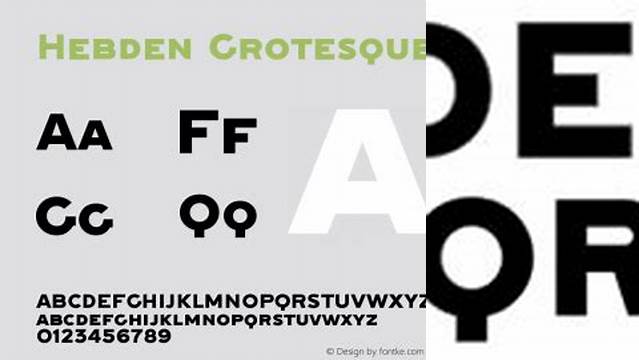
Are you on the hunt for the perfect font to elevate your design projects? Look no further! In this article, we'll dive deep into the world of Hebden Grotesque, exploring its unique characteristics, its versatility, and, most importantly, where you can find it for free. So, whether you're a seasoned designer or just starting out, get ready to discover how Hebden Grotesque can add a touch of sophistication and modernity to your creative endeavors.
What is Hebden Grotesque?
Let's start with the basics. Hebden Grotesque is a sans-serif typeface known for its clean lines, balanced proportions, and overall readability. It falls into the "grotesque" category, which refers to early sans-serif fonts that emerged in the 19th century. These fonts are characterized by their simple, unadorned letterforms, making them ideal for a wide range of applications, from body text to headlines. Hebden Grotesque, in particular, strikes a harmonious balance between classic and contemporary design, making it a versatile choice for various projects.
The beauty of Hebden Grotesque lies in its simplicity. The absence of serifs gives it a modern and approachable feel, while its carefully crafted letterforms ensure readability even at smaller sizes. This makes it an excellent option for website design, where clear and legible text is crucial for user experience. Imagine using Hebden Grotesque for your website's headings and body text – its clean appearance will instantly enhance the overall aesthetic and professionalism. Moreover, its versatility extends beyond the digital realm. Hebden Grotesque can also be used effectively in print materials such as brochures, posters, and business cards. Its adaptability allows it to seamlessly integrate into various design styles, whether you're aiming for a minimalist, corporate, or creative look.
Furthermore, Hebden Grotesque's balanced proportions contribute to its visual appeal. Each letterform is meticulously designed to ensure harmony and consistency, resulting in a typeface that is both pleasing to the eye and easy to read. This attention to detail is what sets Hebden Grotesque apart from other sans-serif fonts, making it a top choice for designers who value quality and craftsmanship. When selecting a font for your project, it's important to consider not only its aesthetic appeal but also its functionality. Hebden Grotesque excels in both areas, offering a winning combination of style and usability. Whether you're designing a logo, creating a website, or crafting a marketing campaign, Hebden Grotesque can help you achieve your desired look and feel.
Key Features of Hebden Grotesque
- Clean and Modern: Its sans-serif design gives it a contemporary edge.
- Highly Readable: Excellent for both headlines and body text.
- Versatile: Suitable for a wide range of design projects.
- Balanced Proportions: Ensures visual harmony and consistency.
- Professional: Adds a touch of sophistication to any project.